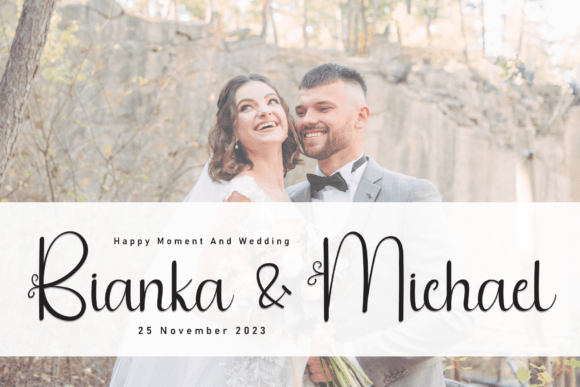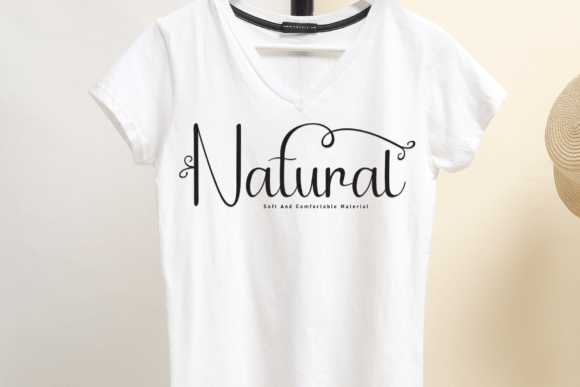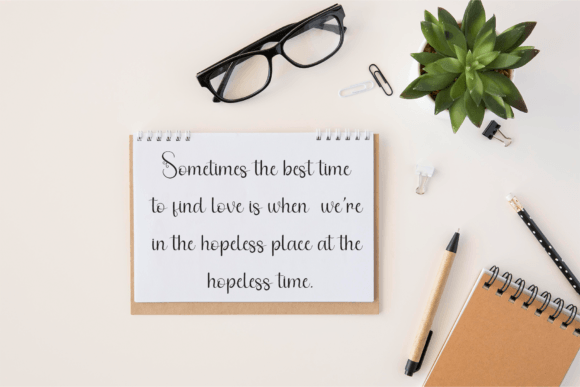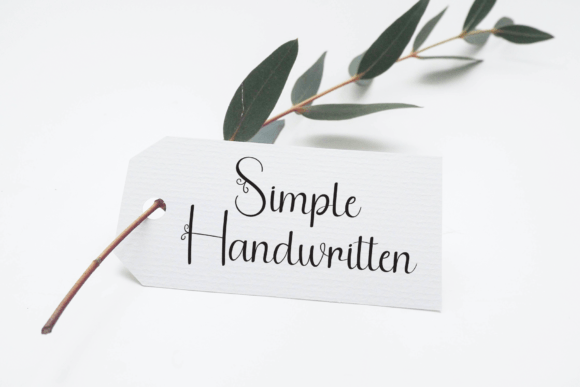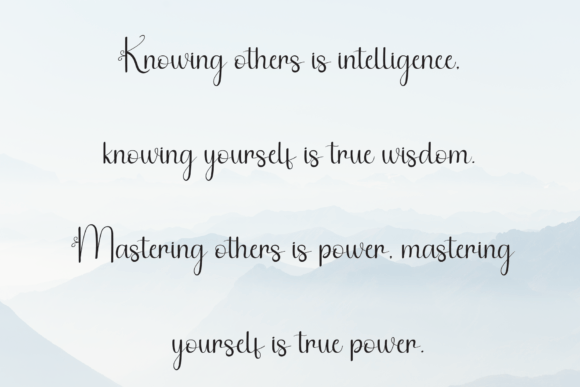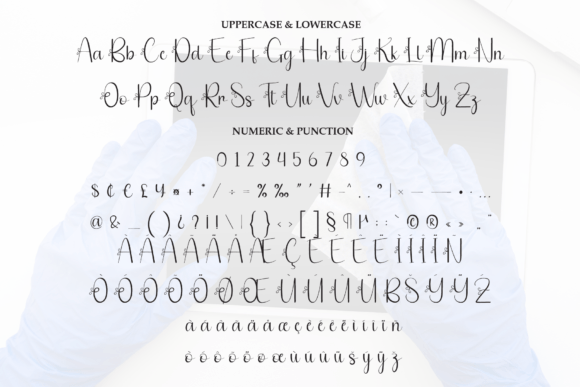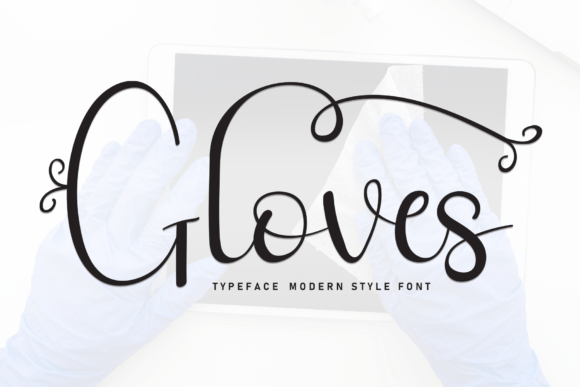
Introducing Gloves Font: The Sweet and Friendly Handwritten Font for Your Creative Projects
Are you looking for a font that can add a touch of warmth and personality to your designs? Look no further than Gloves Font, a sweet and friendly handwritten font that’s perfect for a variety of creative projects. In this article, we’ll take a closer look at Gloves Font, its features, and how you can use it to elevate your designs.
What is Gloves Font?
Gloves Font is a beautiful, handwritten font that’s designed to bring a touch of fun and playfulness to your designs. With its sweet and friendly appearance, this font is ideal for writing wedding invitations, cards, or any other design that might need a personal touch. Whether you’re a designer, crafter, or DIY enthusiast, Gloves Font is a versatile and charming font that can help you create stunning designs.
Key Features of Gloves Font
So, what makes Gloves Font so special? Here are some of its key features:
- Cute and Versatile: Gloves Font is a cute and versatile font that’s perfect for a wide range of design projects, from wedding invitations to social media graphics.
- Handwritten Appearance: With its handwritten appearance, Gloves Font adds a personal touch to your designs, making them more relatable and engaging.
- Easy to Read: Despite its playful appearance, Gloves Font is easy to read, making it perfect for designs that require a clear and concise message.
- High-Quality: Gloves Font is a high-quality font that’s designed to deliver exceptional results, even at large sizes.
Use Cases for Gloves Font
Gloves Font is a versatile font that can be used in a variety of design projects. Here are some use cases to get you started:
- Wedding Invitations: Add a touch of romance and whimsy to your wedding invitations with Gloves Font.
- Cards and Stationery: Use Gloves Font to create beautiful, handmade cards and stationery that are sure to delight.
- Social Media Graphics: Add a playful touch to your social media graphics, such as Instagram posts and Facebook updates.
- DIY Projects: Use Gloves Font to add a personal touch to your DIY projects, such as crafts, scrapbooking, and more.
Tips for Using Gloves Font
Here are some tips for using Gloves Font in your designs:
- Pair with Other Fonts: Experiment with pairing Gloves Font with other fonts to create a unique and visually appealing design.
- Use in Combination with Images: Use Gloves Font in combination with images to add a touch of personality to your designs.
- Experiment with Colors: Don’t be afraid to experiment with different colors to find the perfect combination for your design.
Gloves Font is a sweet and friendly handwritten font that’s perfect for designers, crafters, and DIY enthusiasts. With its cute and versatile appearance, this font is ideal for a wide range of design projects, from wedding invitations to social media graphics. Whether you’re looking to add a touch of whimsy or a personal touch to your designs, Gloves Font is a great choice. So why not give it a try and see how it can elevate your designs?